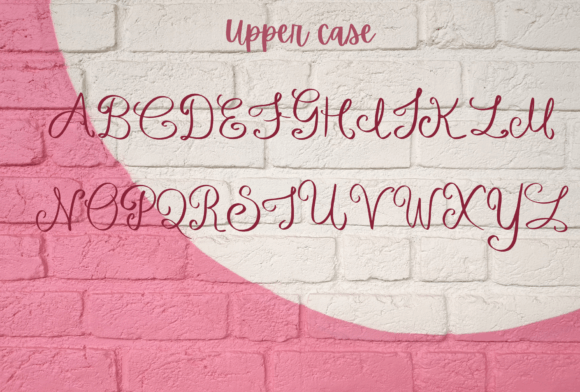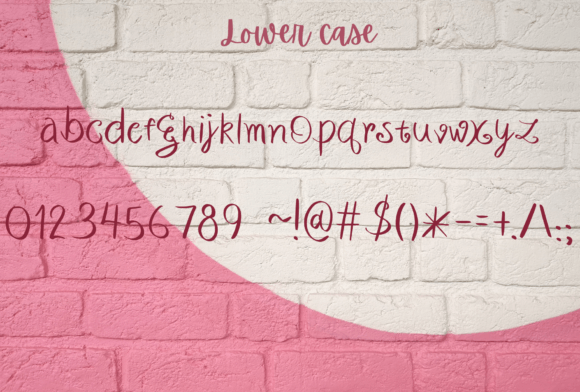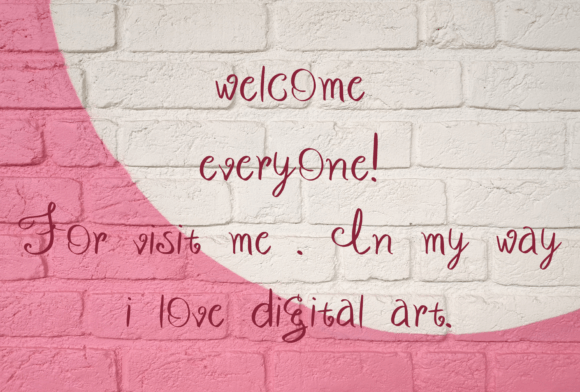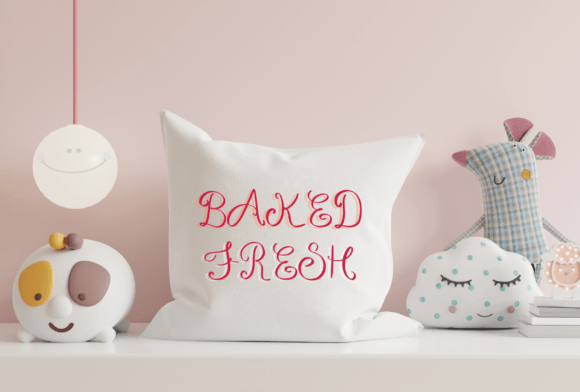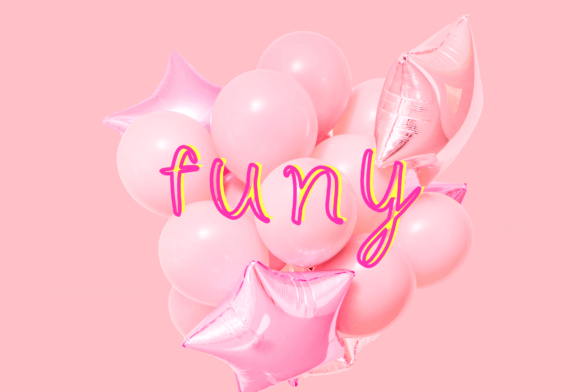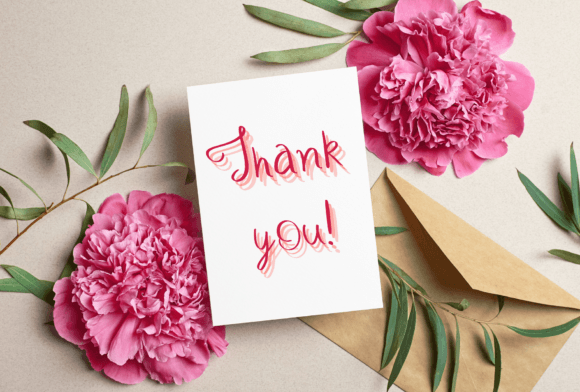
Introduction to Poppy Love Font
Poppy Love a charming and lovely handwritten font, perfect for adding a personal touch to your designs.
With its delicate strokes and playful letterforms, this font captures the warmth and kindness of a true handwriting style Ideal for greeting cards, wedding invitations, and other romantic designs, this font is sure to bring a touch of love and joy to any project.